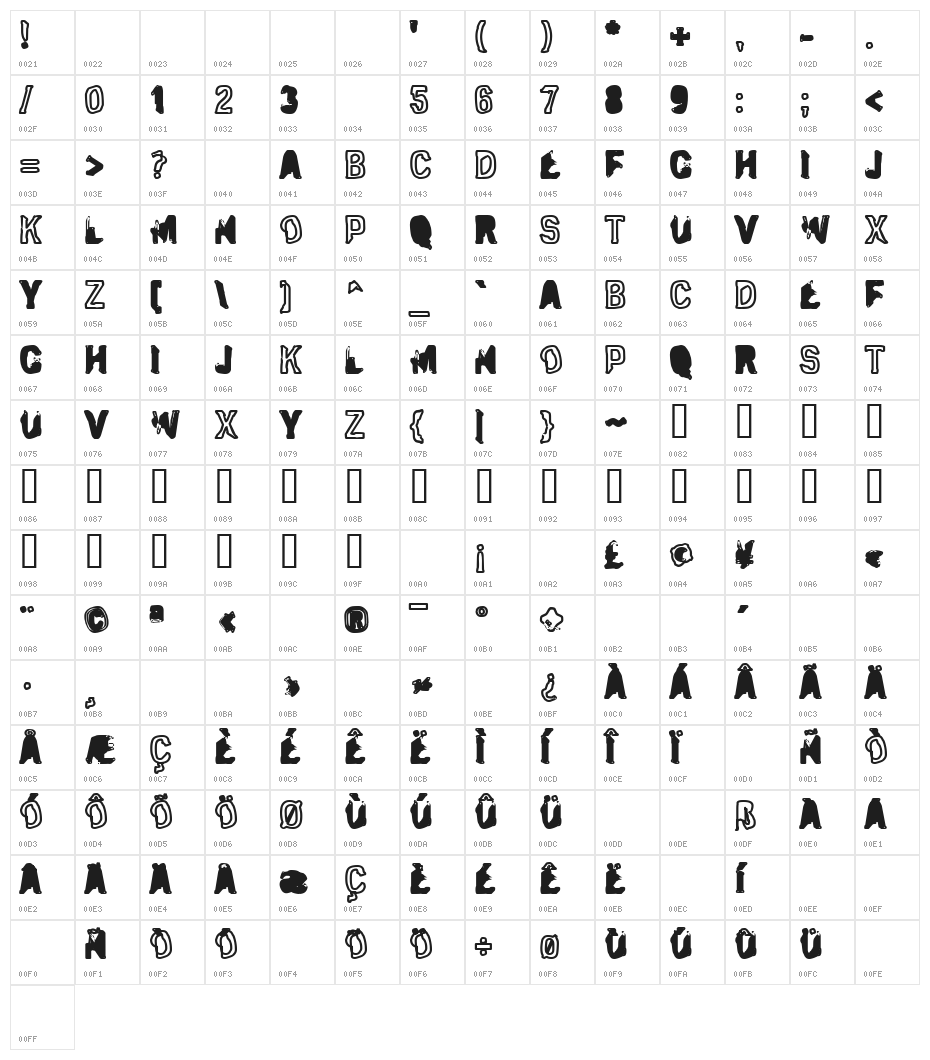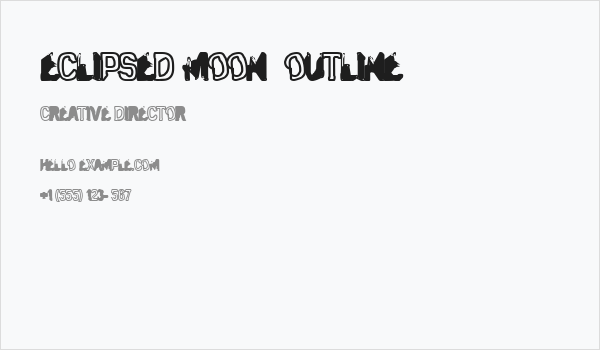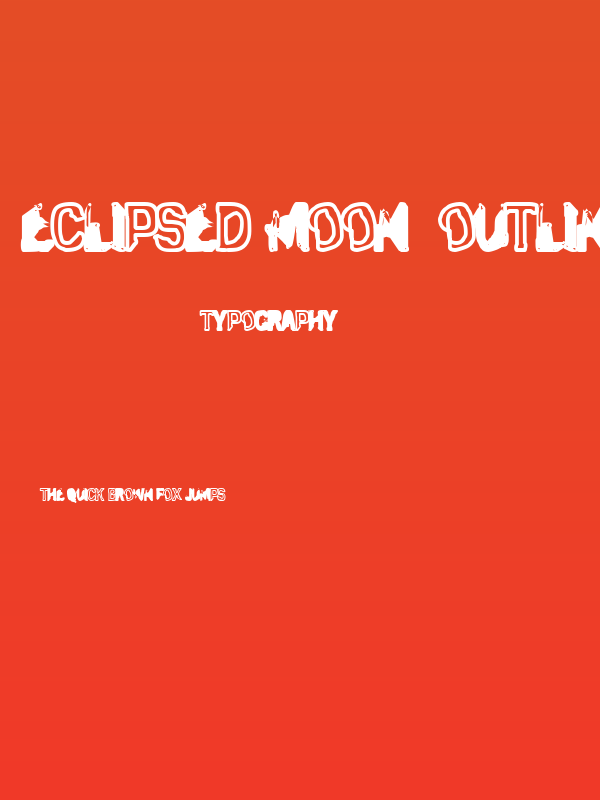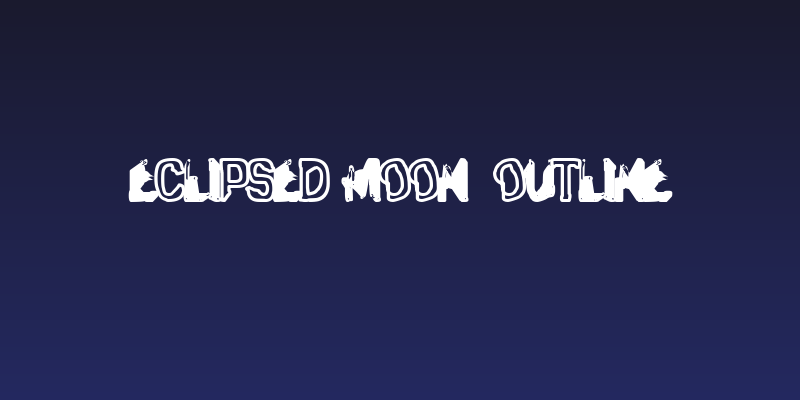
Eclipsed Moon Outline Font
Eclipsed Moon Outline Description
This font features a bold, artistic style with a unique eclipse-like effect. Each character appears as if partially obscured by a shadow, creating a dramatic and eye-catching appearance. The outlines are thick and prominent, enhancing the boldness of the design. The font combines both solid and outlined elements, giving it a dynamic and layered look. It is particularly suitable for creative projects that require a standout visual impact. The mix of filled and hollow spaces within the characters adds depth and intrigue, making it ideal for titles and headings that need to capture attention.
| Proposed Projects | Ideal for posters, album covers, event invitations, and any project needing a bold visual statement. |